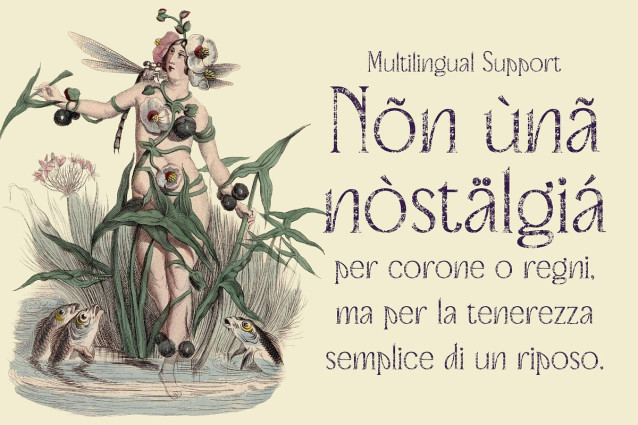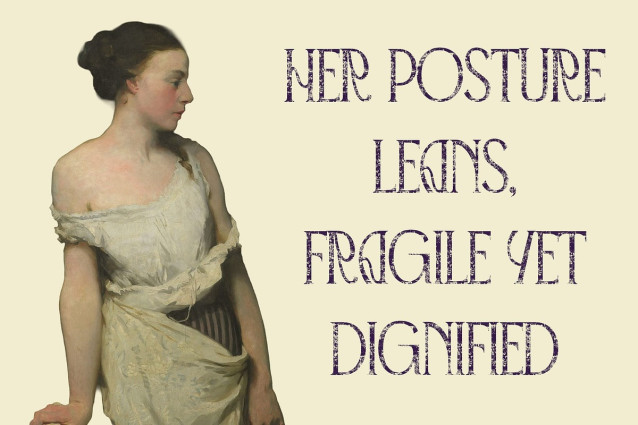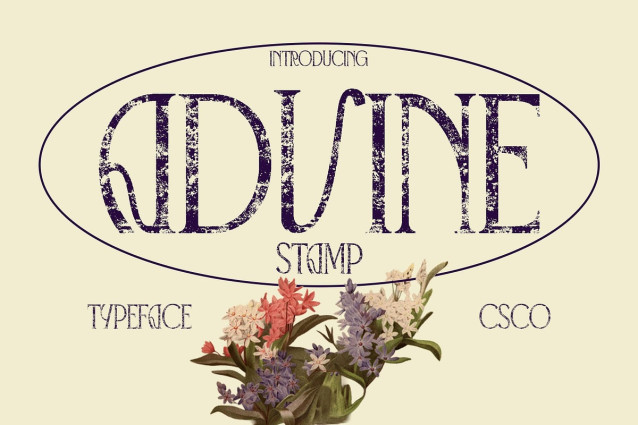
Advine Stamp Font
Advine Stamp Font – This font takes inspiration from the flowing curves of Art Nouveau, blending organic shapes with modern serif precision. Its graceful letterforms carry a sense of timeless elegance, making it a versatile choice for projects that demand sophistication.
Stamp Texture for Vintage Vibe What sets a font apart is its subtle stamped texture, which adds depth and a handcrafted charm. This vintage touch softens the modern form, evoking the look of traditional printing methods while preserving readability and style.
Elegant and Historical Expression Balancing refinement with history, this font feels perfectly suited for elegant manuscripts, cultural projects, or designs that seek to echo the grandeur of the past. Its ornamental quality enhances any layout, offering richness and authenticity.
Versatility Across Creative Projects Ideal for posters, book covers, editorial spreads, or branding with a historical or luxurious theme, adapts easily while maintaining its strong personality. Whether used in bold titles or decorative layouts, it delivers both elegance and a vintage soul.